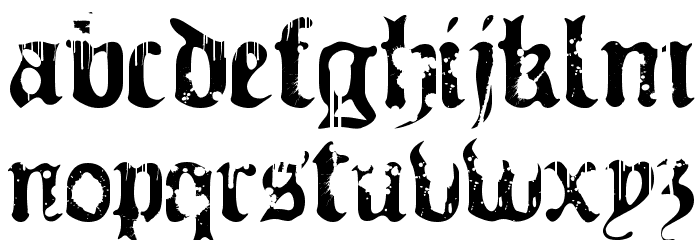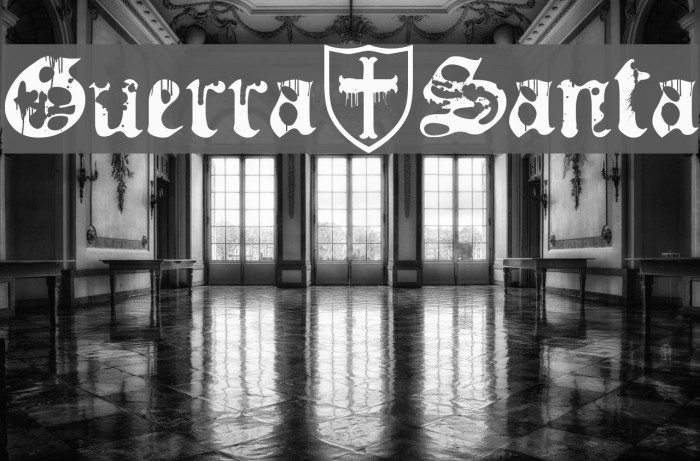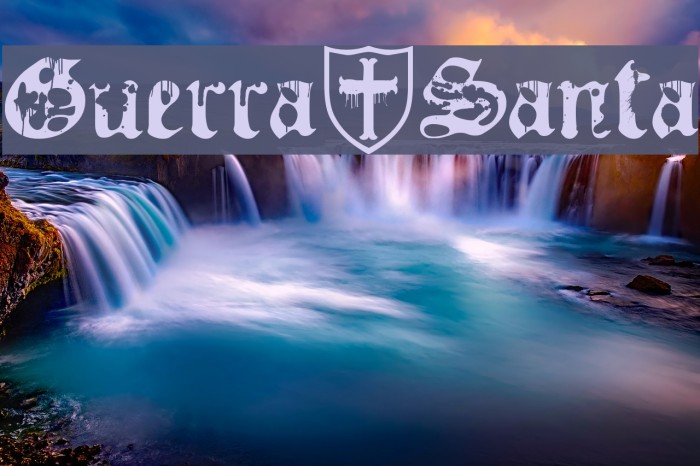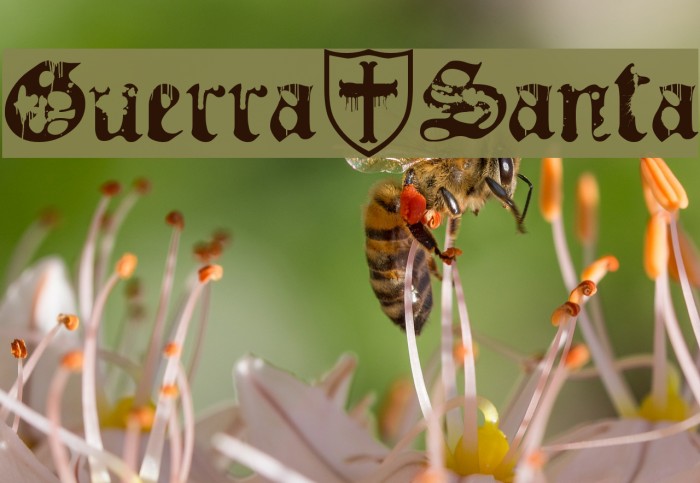
Guerra_Santa Font
This font features a bold and distressed style, reminiscent of gothic and medieval influences. The characters are heavily stylized with sharp edges and intricate details, giving them a worn and weathered appearance. The uppercase letters are particularly ornate, with flourishes and embellishments that add to the dramatic effect. The lowercase letters maintain the same distressed aesthetic, ensuring consistency across the typeface. Numbers and special characters are equally detailed, making this font suitable for creating impactful and eye-catching designs. The overall look is both vintage and rebellious, perfect for projects that require a strong visual statement.
A bold, distressed gothic-style font with intricate details and a vintage feel.
- Proposed Projects: Ideal for album covers, posters, branding for edgy or alternative products, and any design needing a dramatic, vintage touch.
- Category: Blackletter
- Overall Style: Vintage, Decorative